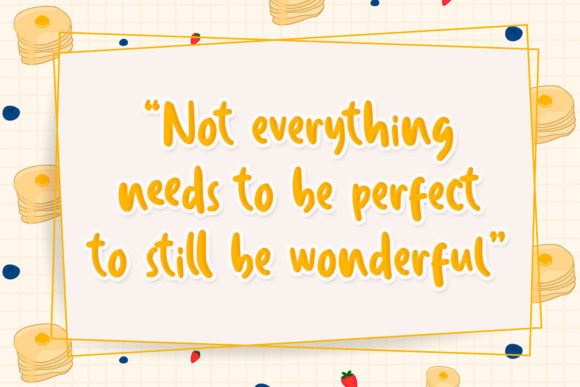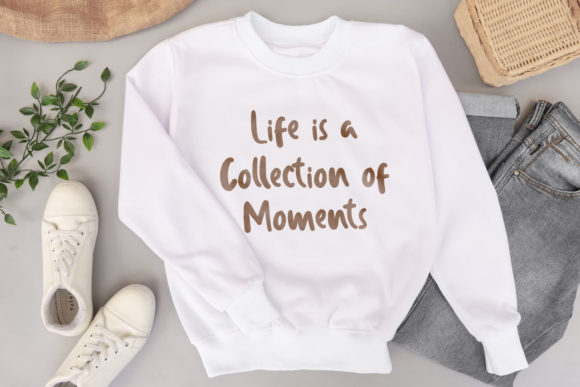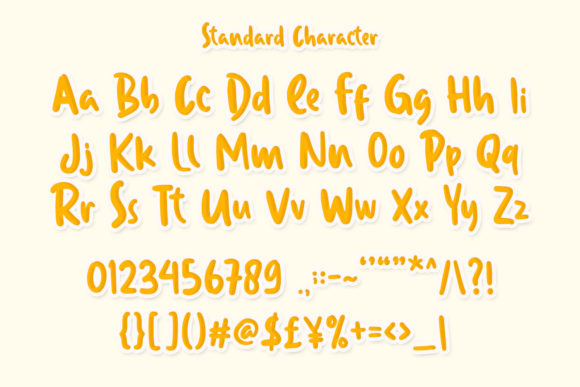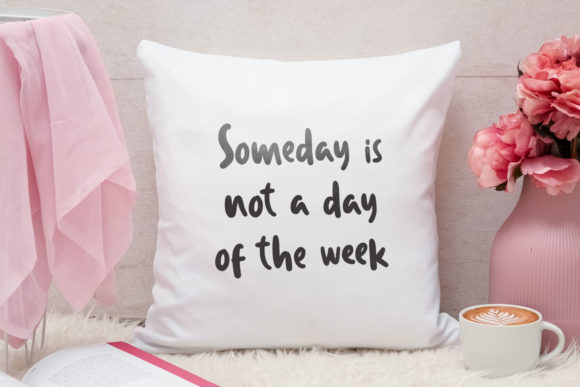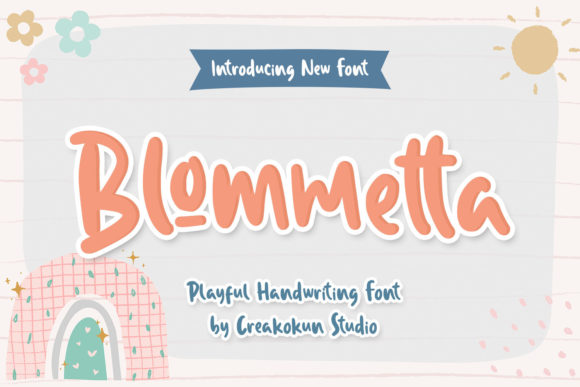
Introducing Blommetta Font: The Cute and Charming Display Font You Need
Are you tired of using the same old fonts in your designs? Do you want to add a touch of whimsy and quirkiness to your projects? Look no further than Blommetta Font, a delightful display font that’s sure to brighten up any design. In this article, we’ll take a closer look at Blommetta Font, its features, and how you can use it to take your designs to the next level.
What is Blommetta Font?
Blommetta Font is a cute and charming display font that’s perfect for designers and crafters looking to add a touch of personality to their projects. With its whimsical and quirky feel, Blommetta Font is sure to stand out from the crowd. Whether you’re designing a logo, creating a social media graphic, or crafting a handmade project, Blommetta Font is the perfect choice.
Features of Blommetta Font
So, what makes Blommetta Font so special? Here are just a few of its key features:
- Cute and charming design: Blommetta Font has a unique and playful design that’s sure to capture attention.
- Whimsical and quirky feel: This font has a fun and carefree vibe that’s perfect for designers and crafters who want to add some personality to their projects.
- Display font: Blommetta Font is a display font, making it perfect for headlines, titles, and other prominent text elements.
- Easy to read: Despite its playful design, Blommetta Font is easy to read, even at smaller sizes.
How to Use Blommetta Font
Blommetta Font is a versatile font that can be used in a variety of design projects. Here are just a few ideas to get you started:
- Logos and branding: Use Blommetta Font to create a unique and memorable logo for your business or brand.
- Social media graphics: Add a touch of personality to your social media graphics with Blommetta Font.
- Handmade projects: Blommetta Font is perfect for crafters who want to add a personal touch to their handmade projects, such as scrapbooking, card making, and journaling.
- Signs and posters: Use Blommetta Font to create eye-catching signs and posters for events, sales, and promotions.
Tips for Using Blommetta Font
Here are a few tips to keep in mind when using Blommetta Font:
- Use it sparingly: Blommetta Font is a display font, so it’s best to use it sparingly to avoid overwhelming your design.
- Pair it with a simple font: Pair Blommetta Font with a simple font, such as a sans-serif font, to create visual interest and contrast.
- Experiment with colors: Blommetta Font looks great in a variety of colors, so don’t be afraid to experiment and find the perfect hue for your design.
Blommetta Font is a cute and charming display font that’s perfect for designers and crafters who want to add a touch of whimsy and quirkiness to their projects. With its unique design, easy readability, and versatility, Blommetta Font is sure to become a favorite in your font collection. So why wait? Download Blommetta Font today and start creating designs that are sure to brighten up the day!